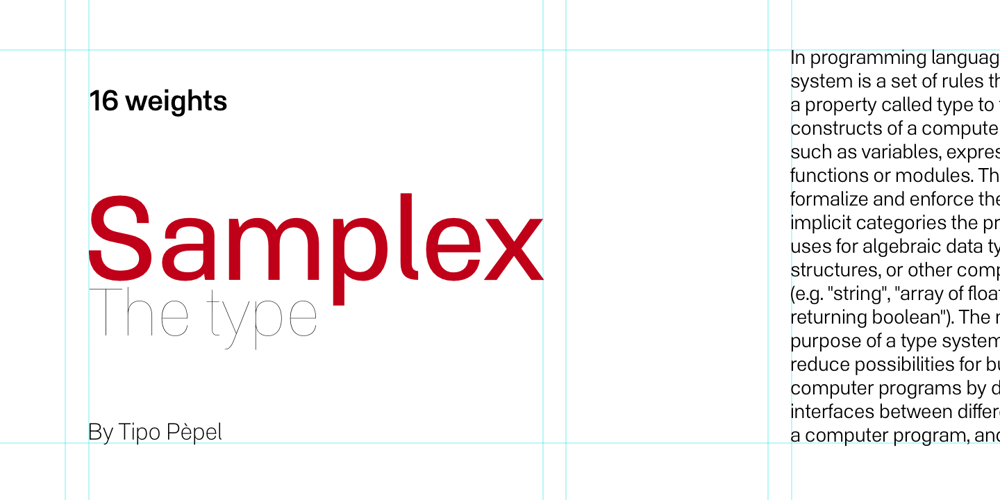
Samplex Font Family was designed by Josep Patau Bellart and published by Tipo Pèpel. Samplex contains 16 styles and family package options. Neutral and universal are two words that could describe a kind of perfection. The search for neutrality and universality is part of history in type design; it was specially important in the so-called Swiss Style. Samplex is a typeface that joins this particular search. The design gets rid of unnecessary elements and stays away from style conflicts.The large and slightly condensed body of lowercase letters makes Samplex a good choice for long paragraphs, and especially appropriate for screen devices. Letters with a blocky appearance give shape to a text in perfect order, ideal for grid lovers and layouts with a strict structure. The design of Samplex is clean and efficient. The diagonal cuts are reserved to the italic letterforms, setting some distance between the solid upright characters and the dynamic oblique forms.